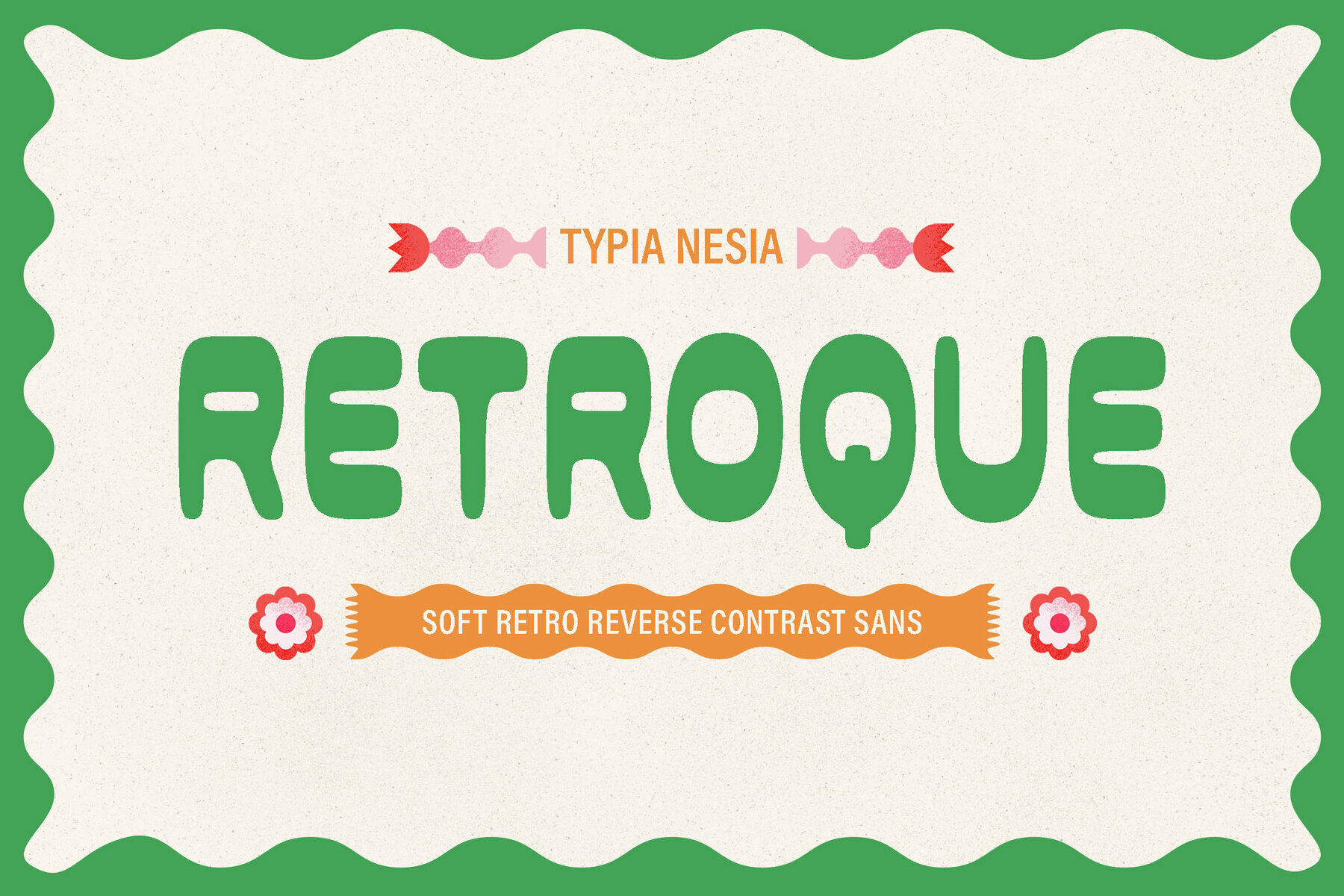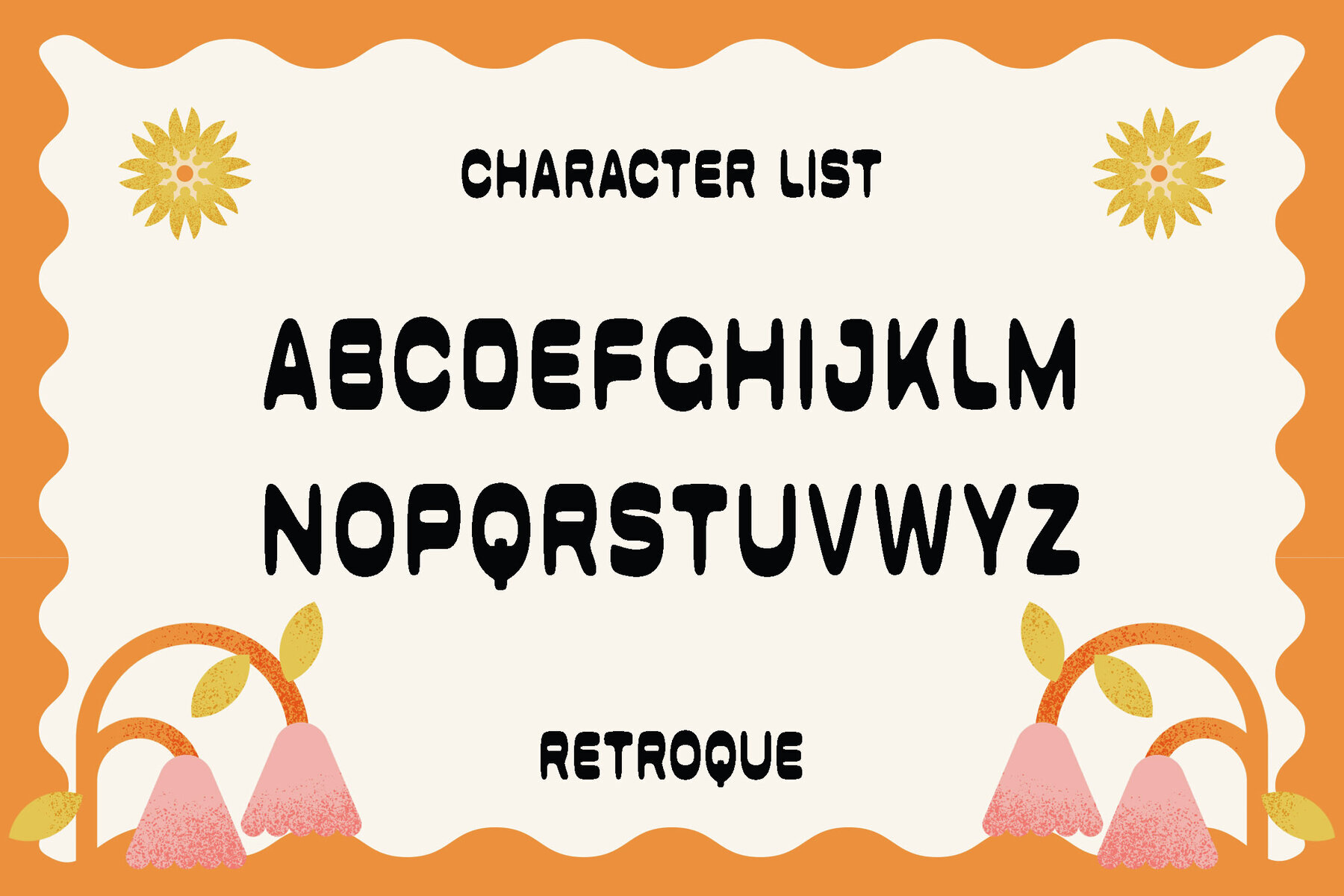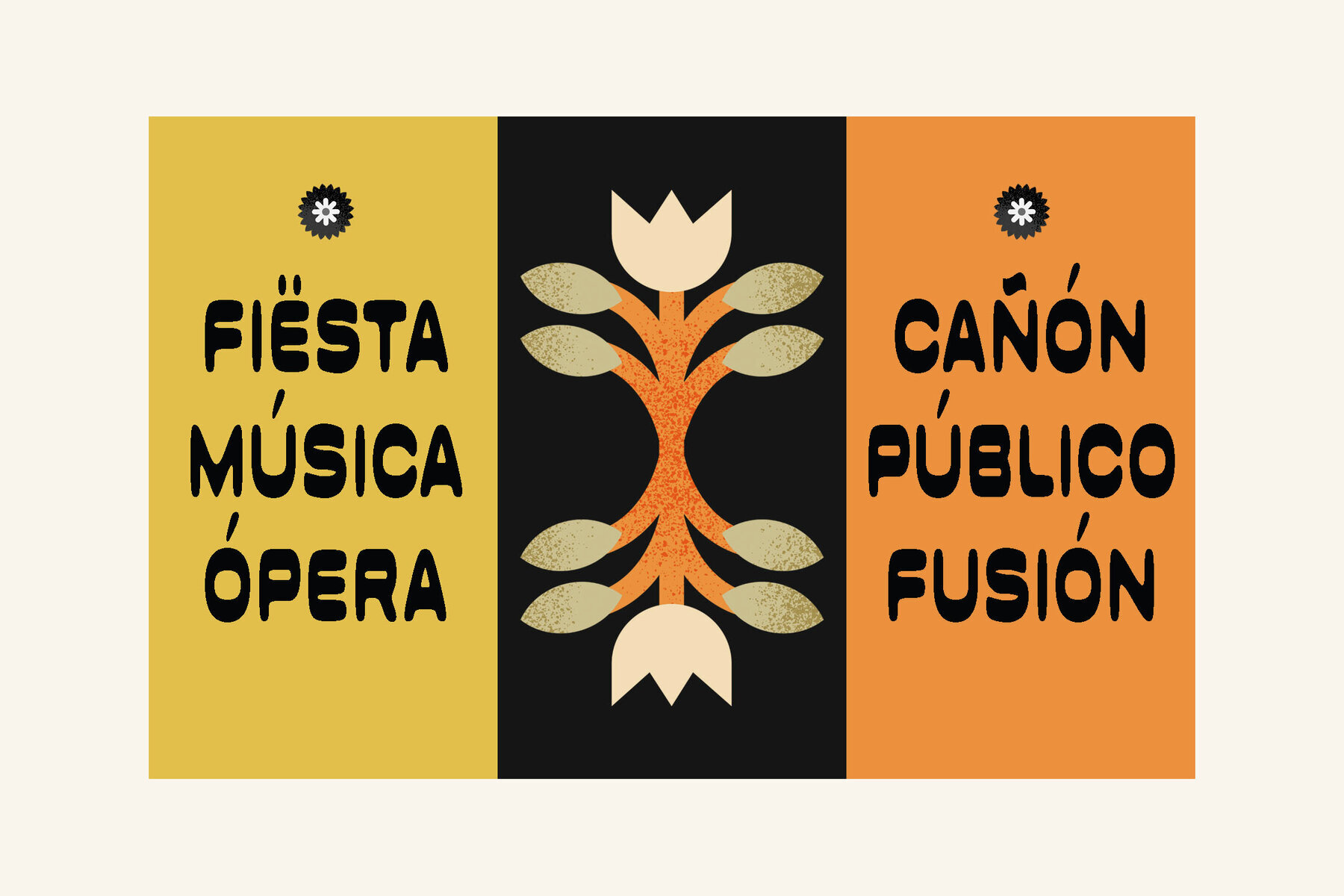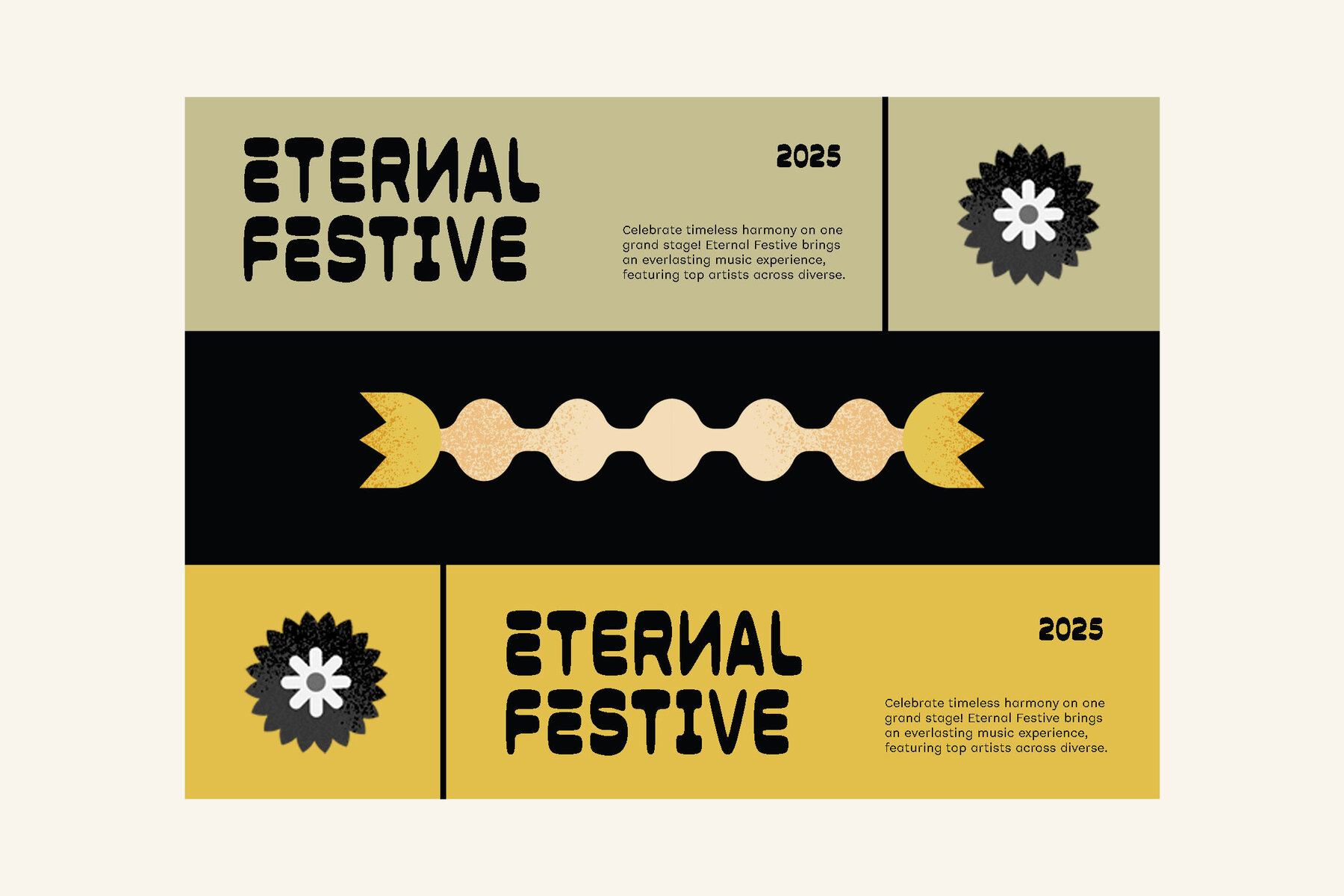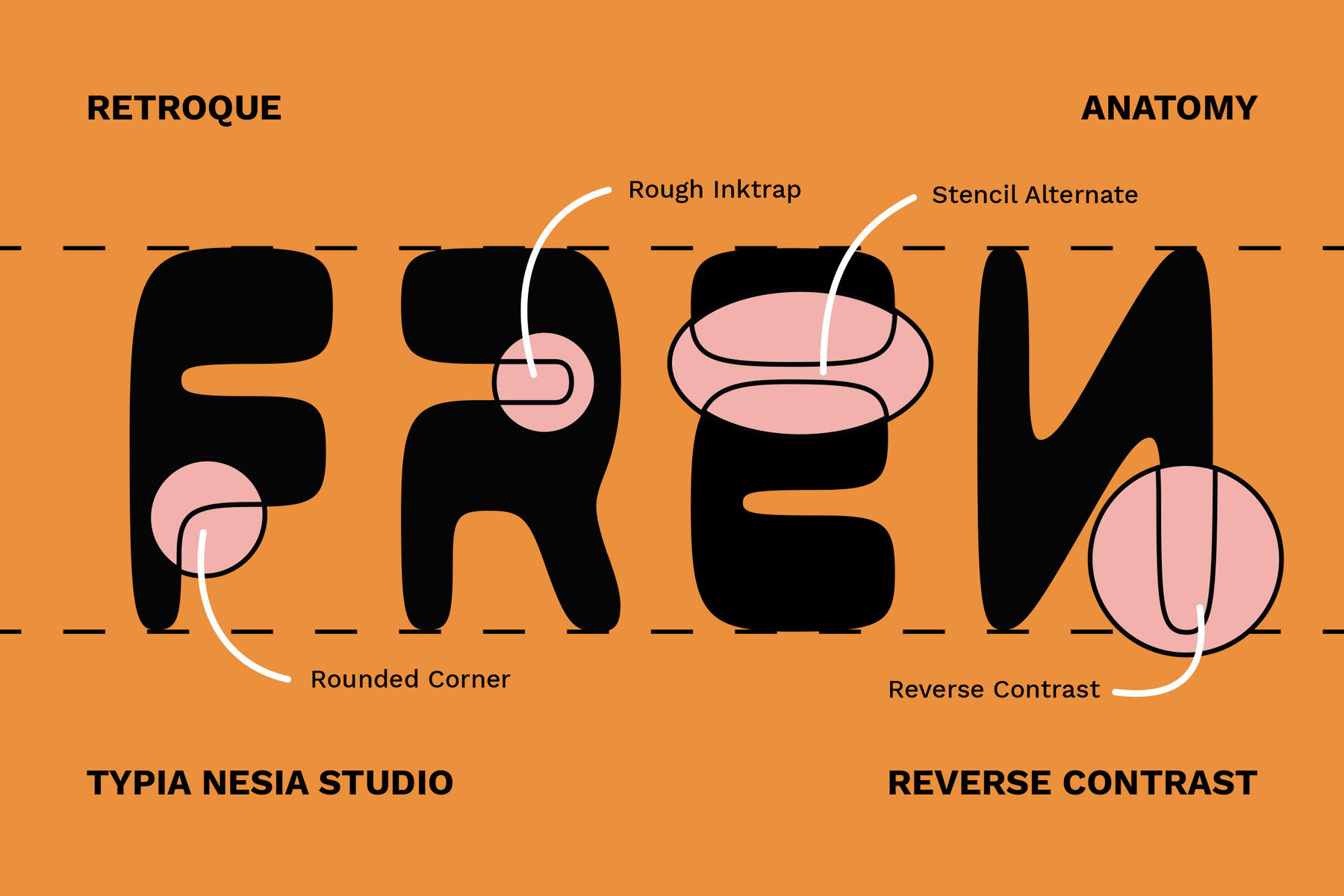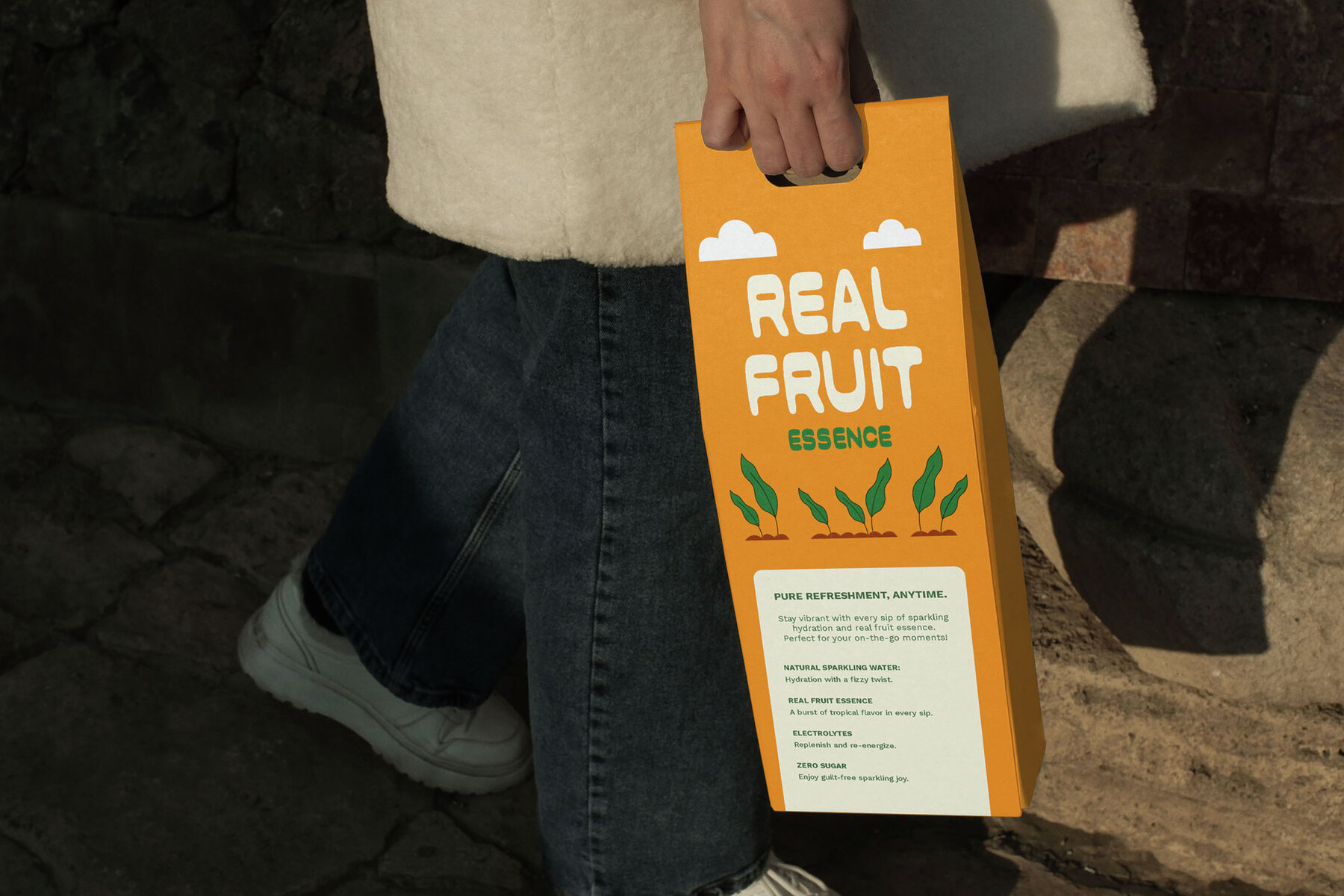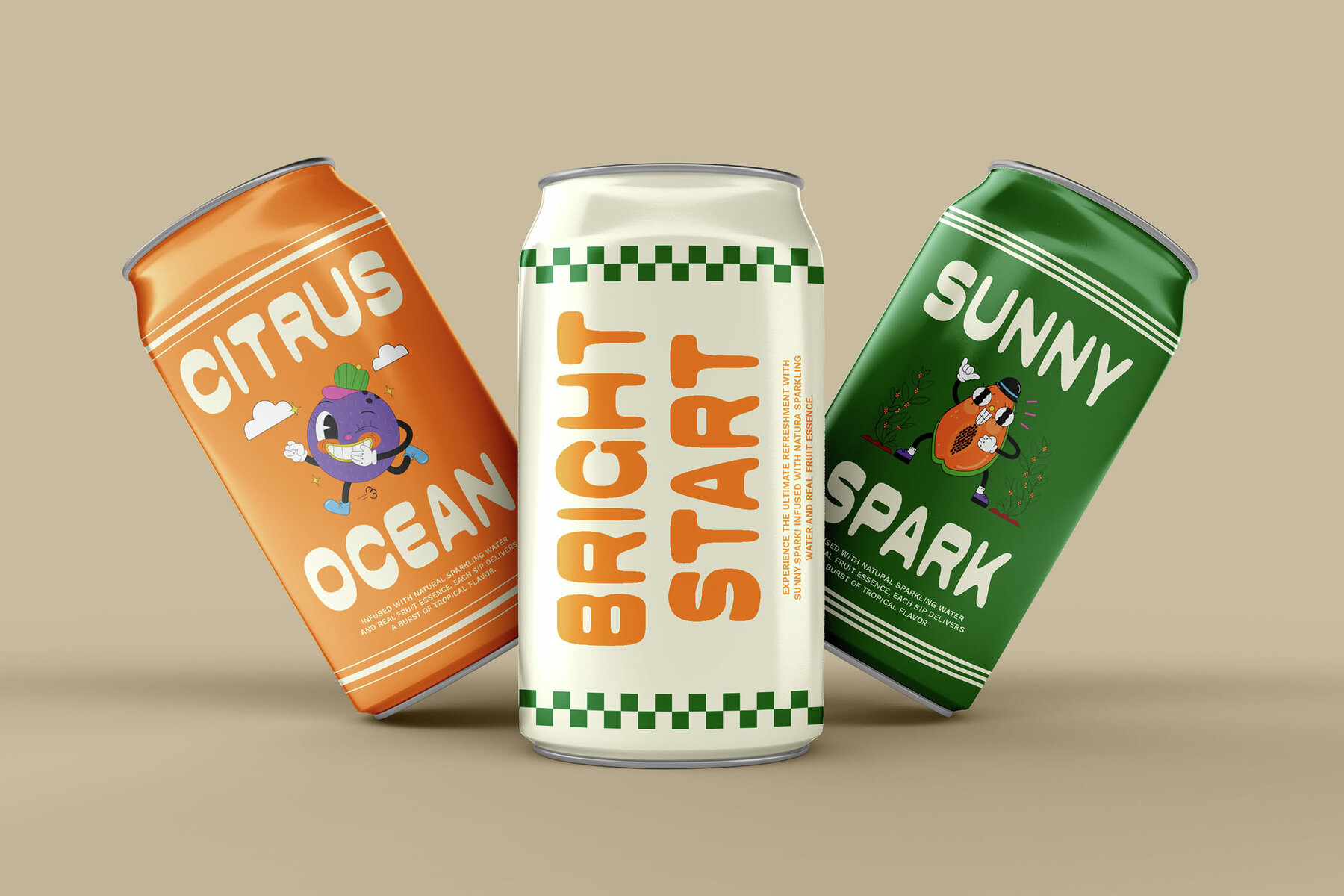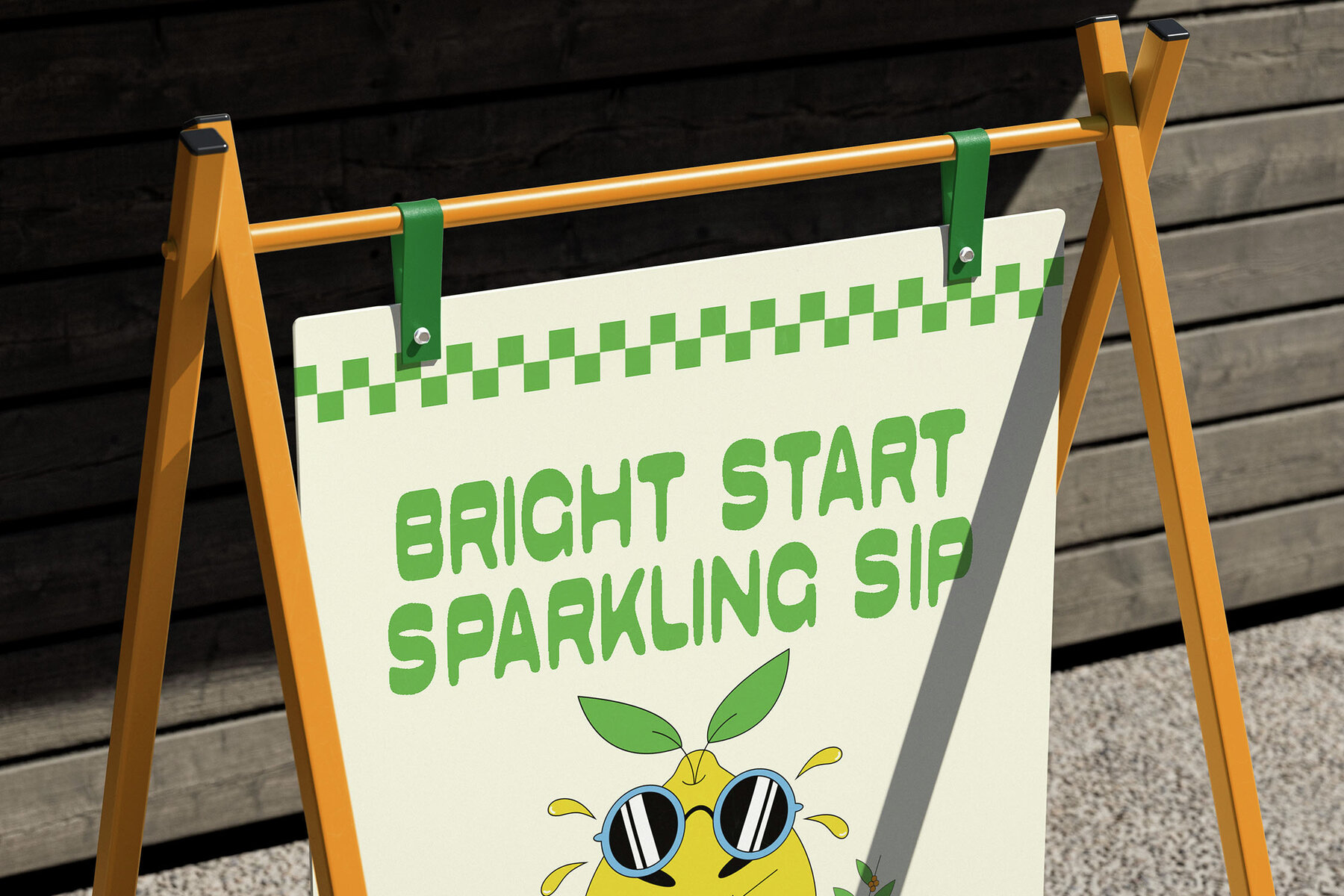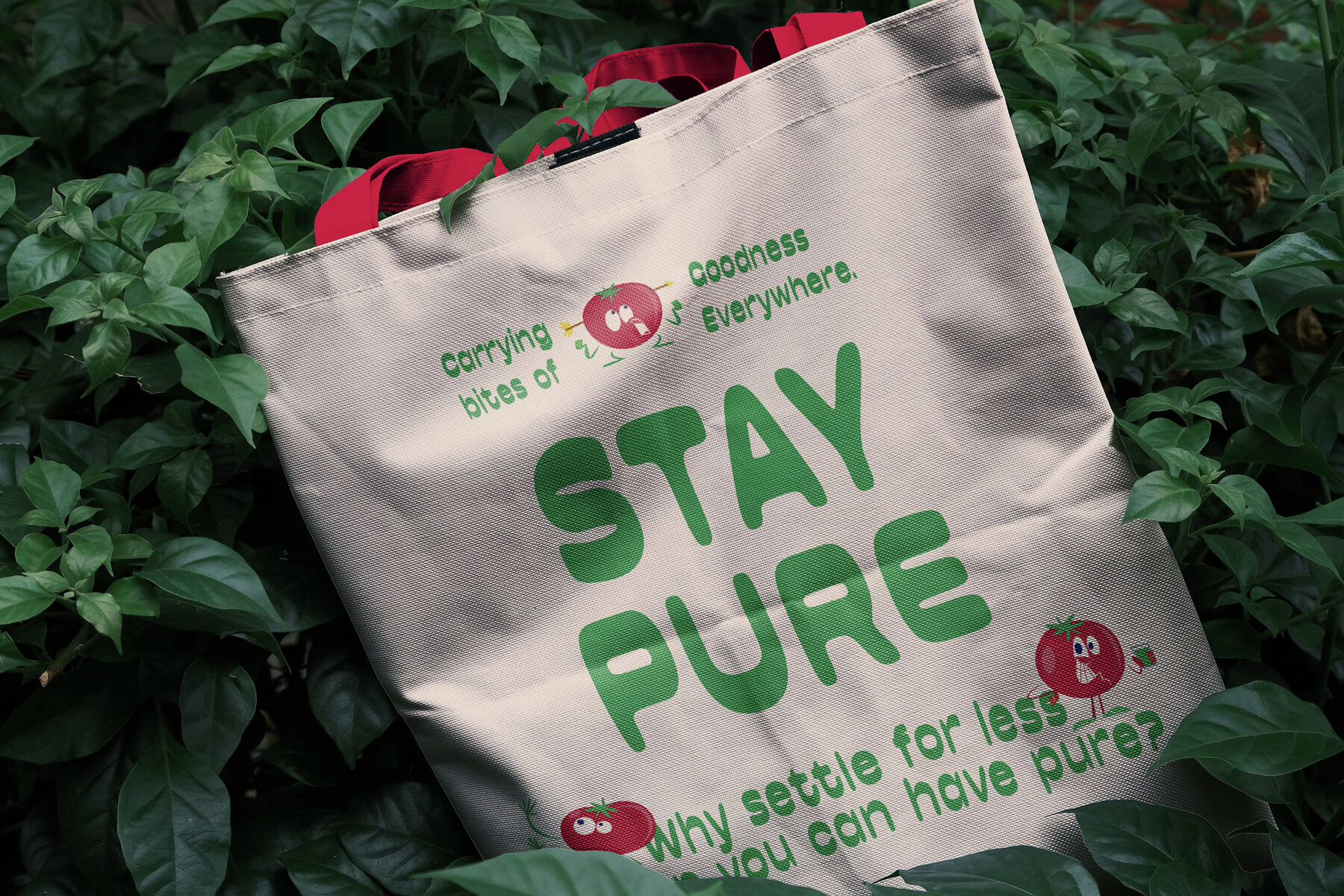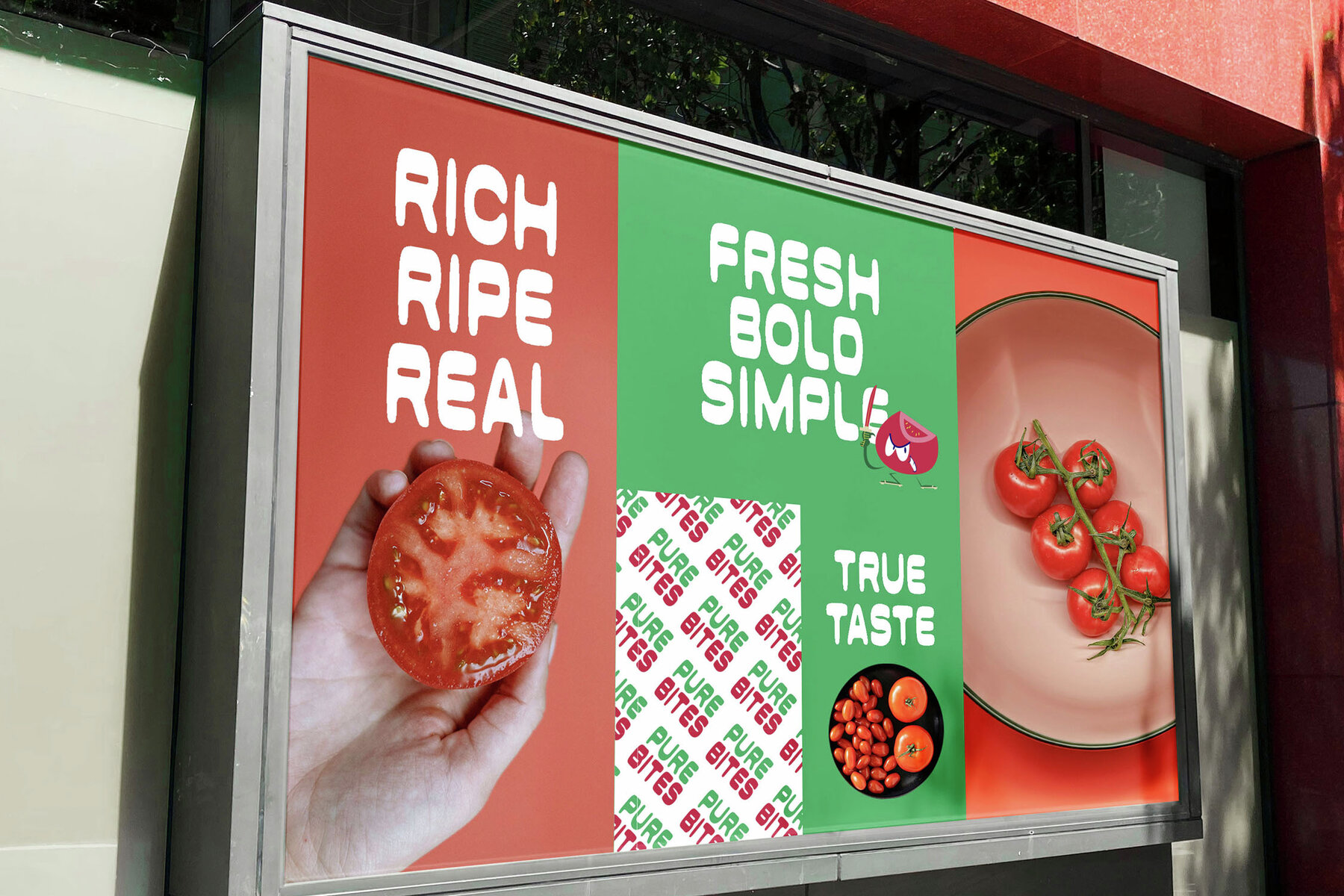
Retroque Font
Retroque Regular
Retroque is a soft retro reverse contrast sans font masterfully blending vintage aesthetics with contemporary style. Featuring smooth curves and bold contrasts, this font encapsulates the essence of retro design, making it ideal for projects that require a touch of unique reverse contrast style. Retroque is well-suited for applications such as retro-inspired branding, vintage posters, creative packaging, social media visuals, logos, artistic headlines, and advertising campaigns.
This modern vintage display font includes a full set of uppercase and lowercase letters, punctuation, numerals, and is enriched with ligatures and stylish alternates to enhance creative flexibility. With multilingual support, Retroque ensures seamless communication across global audiences. Ideal for designers who appreciate retro vibes with a new-age twist, this font combines aesthetic charm with practical versatility. Embrace the energy of vintage and retro in your design projects with Retroque.